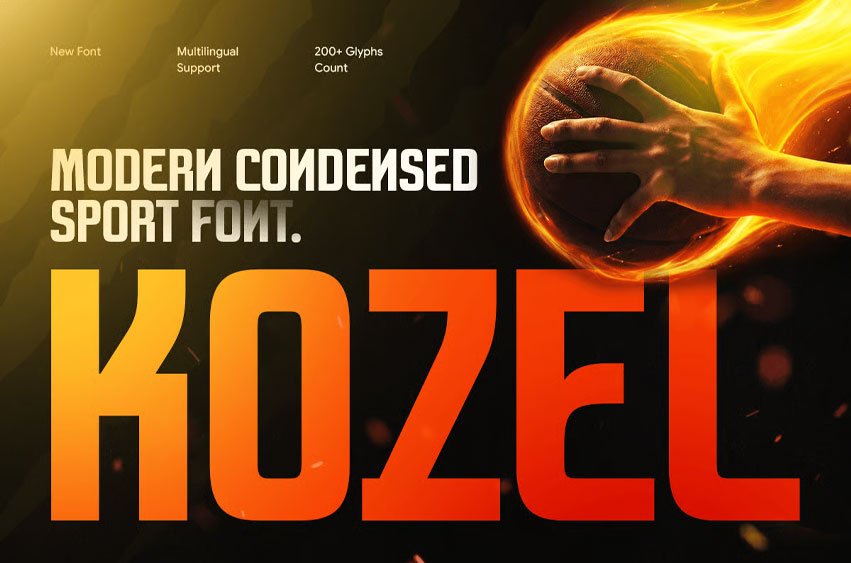
Kozel Font is a modern condensed sport font designed to deliver speed, strength, and high-impact visual performance. Featuring narrow letterforms, bold proportions, and a dynamic athletic style, Kozel is perfect for sports branding, tournament graphics, fitness campaigns, esports visuals, posters, and action-driven design projects.
Combining a powerful condensed structure with contemporary sports aesthetics, Kozel creates a confident and energetic visual identity. Its streamlined design maximizes space efficiency while maintaining excellent readability, making it ideal for competitive events, gaming brands, fitness businesses, and modern promotional materials.
Kozel – Modern Condensed Sport Font Features:
- Modern condensed style with sporty aesthetics
- Bold letterforms with dynamic athletic character
- Ideal for sports branding, tournaments, posters, and digital campaigns
- Uppercase, lowercase, numerals, and punctuation included
- Space-efficient structure with strong visual impact
- Perfect for fitness brands, esports visuals, and event promotions
Power your designs with Kozel – the condensed sport font built for energetic and competitive branding.